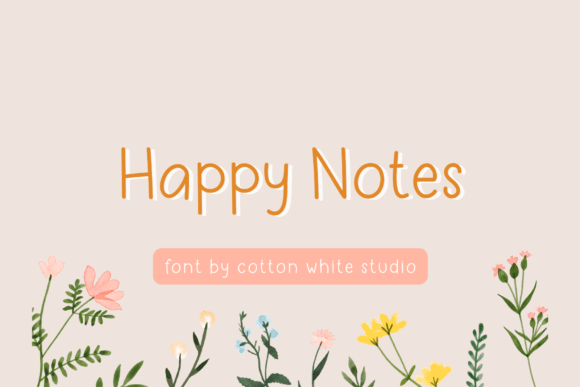
Introducing Happy Notes Font - The Perfect Script Font to Unleash Your Inner Creativity!
In a world where individuality and self-expression reign supreme, Happy Notes Font emerges as a captivating script font ready to transform your creative visions into tangible masterpieces. Its delicate handwritten strokes evoke a sense of nostalgia and authenticity, inviting you to embark on a journey of artistic exploration.
Crafted with meticulous attention to detail by the talented designers at Cotton White Studio, Happy Notes Font embodies the essence of elegance and charm. Each letter dances across the page with a graceful fluidity, reminiscent of a skilled calligrapher's penmanship. Its whimsical curves and playful flourishes add a touch of whimsy and delight to any project, making it the perfect choice for those seeking a font that exudes personality and charm.
Whether you're a seasoned designer seeking to elevate your work, a budding artist yearning to express your unique style, or simply someone looking to add a personal touch to your digital creations, Happy Notes Font is the perfect tool to unleash your creativity. Its versatility knows no bounds, making it ideal for a wide range of projects, from digital planners and journals to invitations, note-taking, and any endeavor that calls for an authentic handwritten aesthetic.
With Happy Notes Font, you'll discover a world of creative possibilities that will captivate your imagination and inspire you to create stunning designs that leave a lasting impression. Its ability to seamlessly blend charm and functionality makes it an indispensable tool for anyone seeking to inject a touch of individuality into their digital creations.
So, embrace the artistry of Happy Notes Font today and embark on an extraordinary journey of self-expression. Let your creativity soar as you witness the transformation of your digital designs into captivating works of art. Happy Notes Font is not just a font; it's an invitation to unlock your creative potential and share your unique vision with the world.